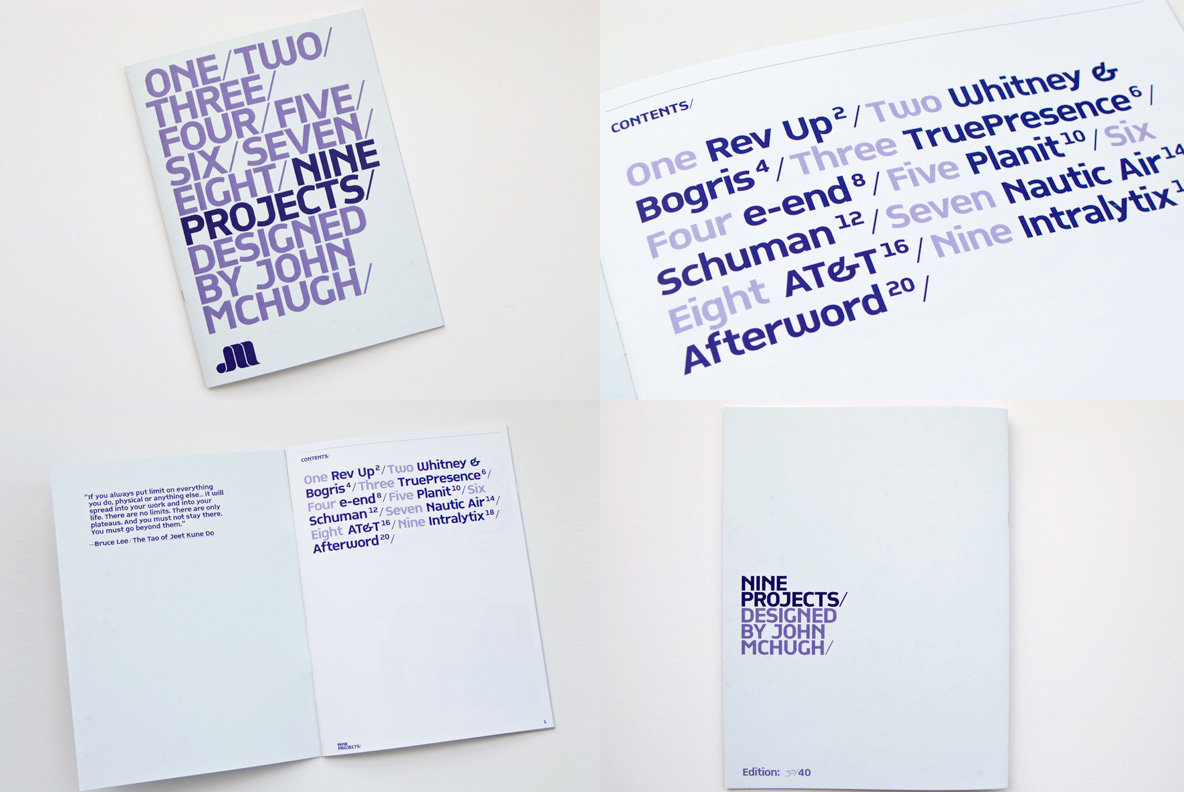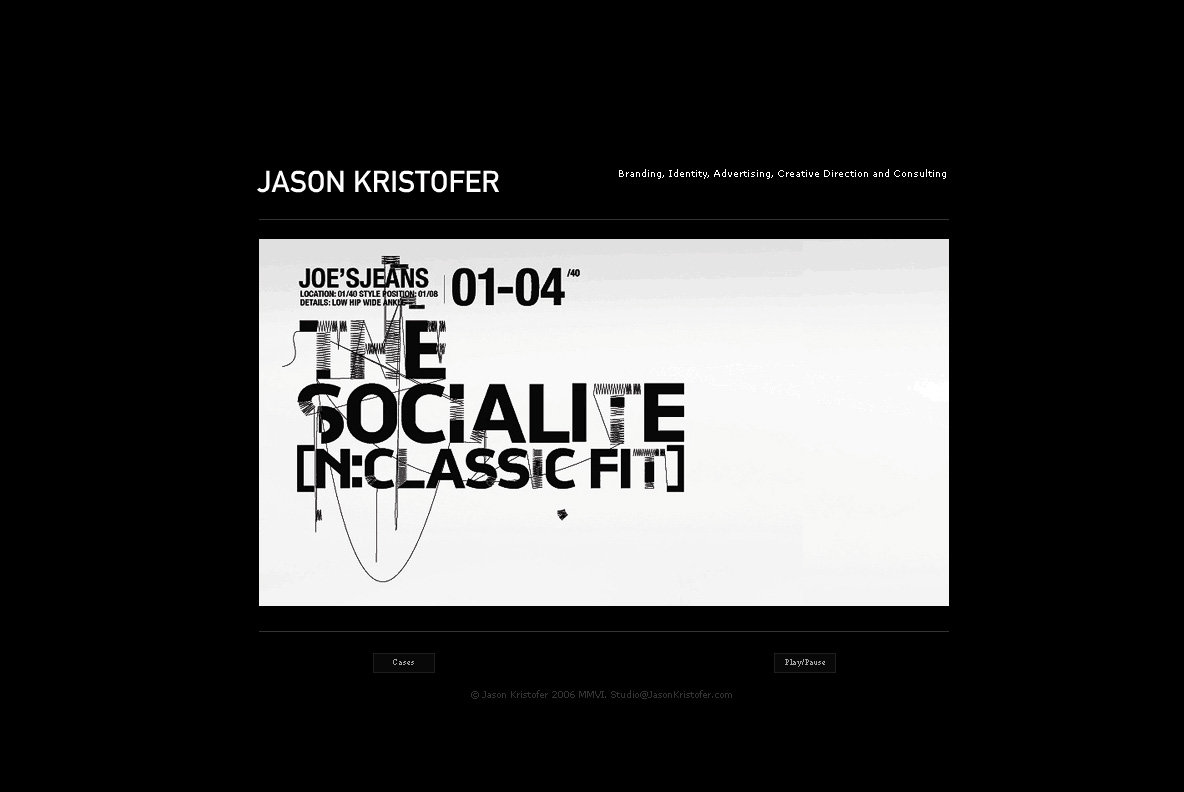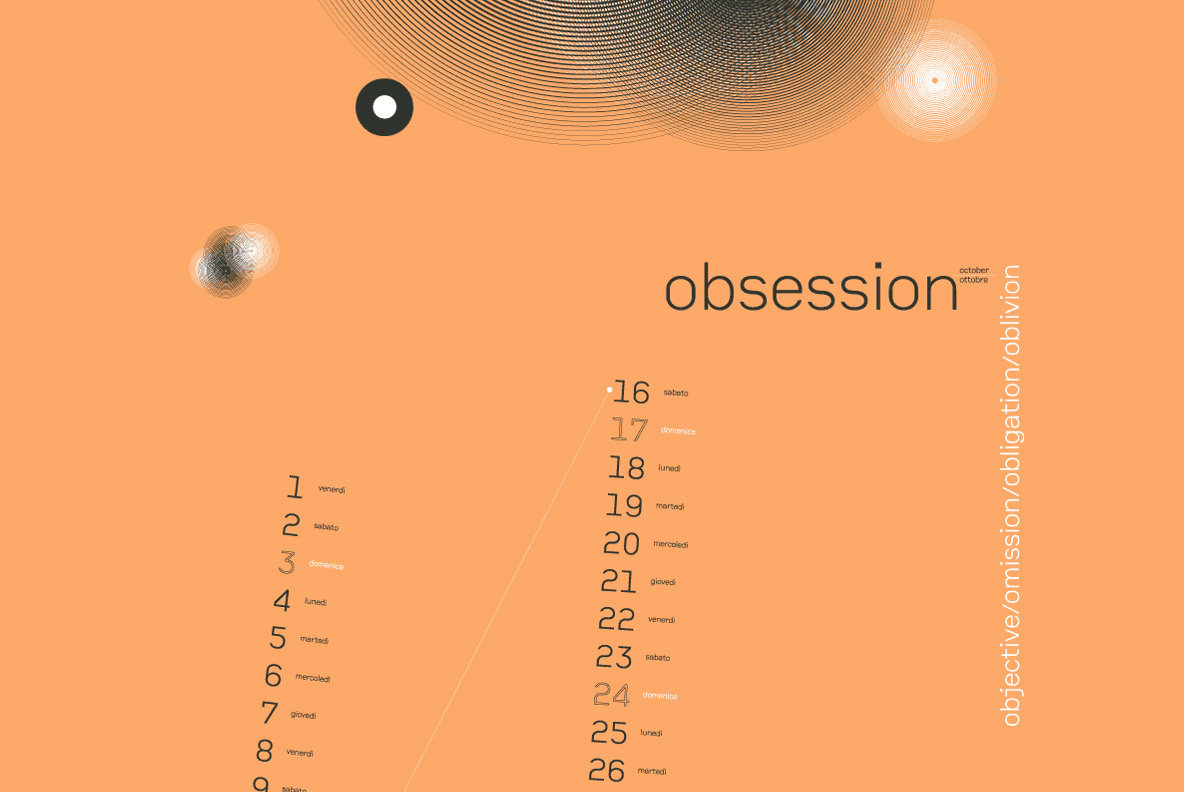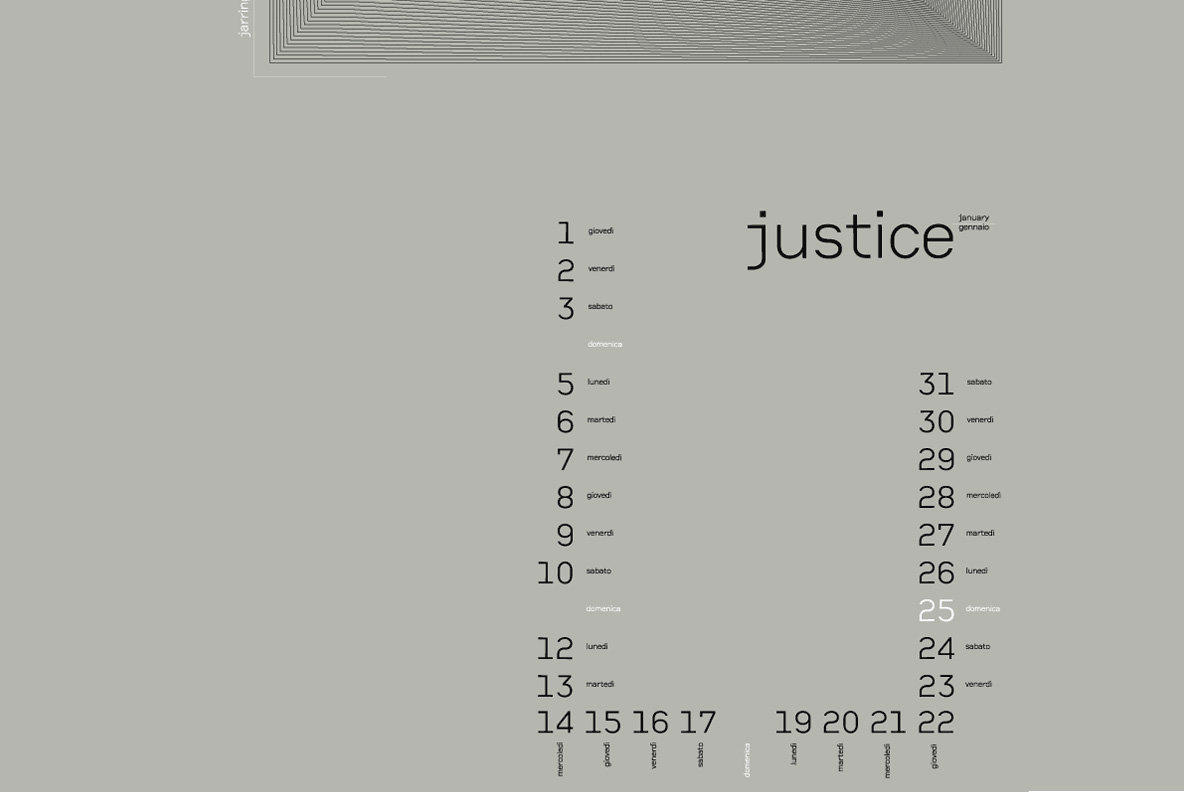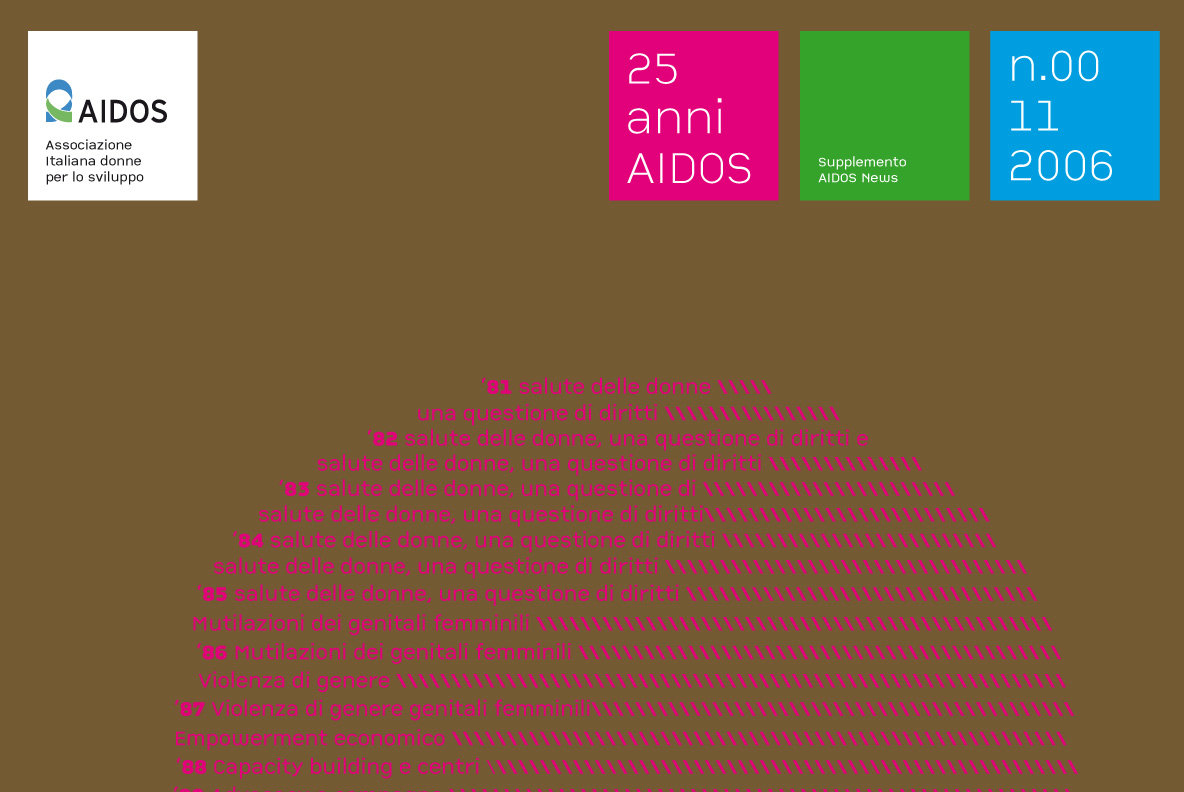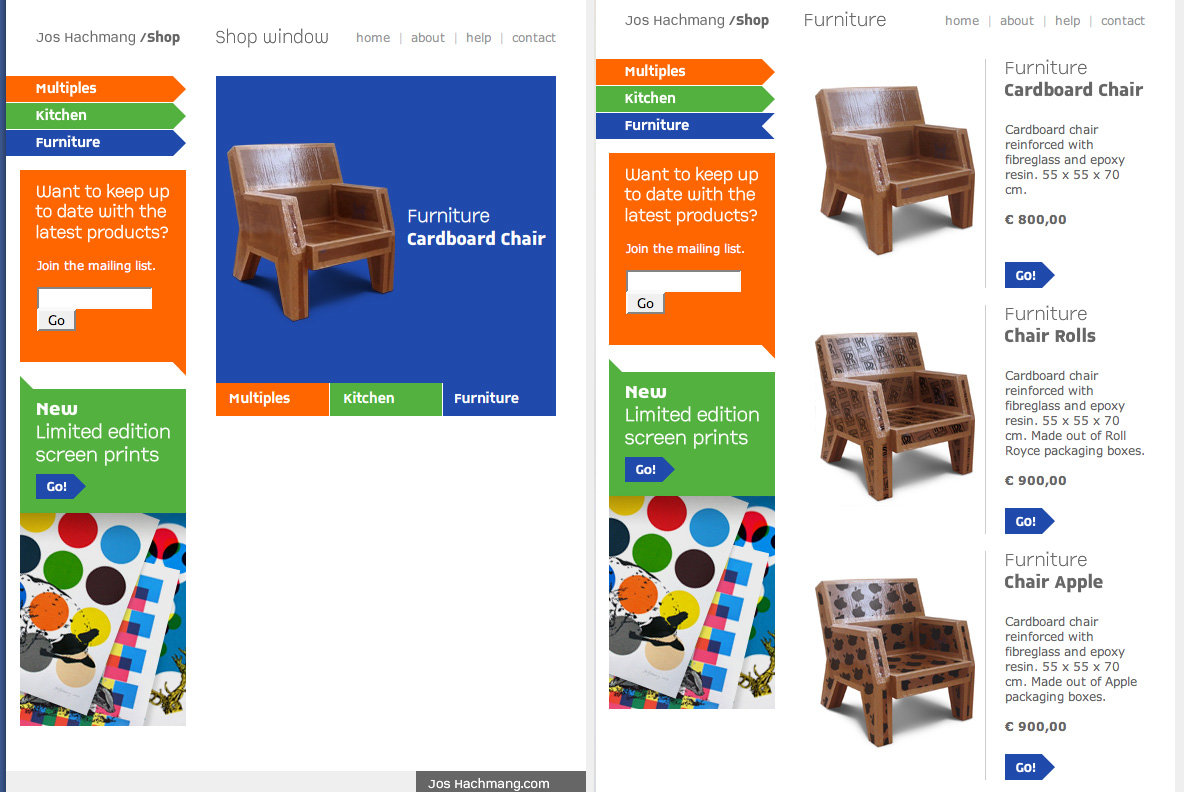
CP Company Font
CP Company Light
CP Company
CP Company Bold
CP Company Black
CP Company™ is a typeface designed in 2000 as part for the corporate image and internal communication of the Italian clothes manufacturer C.P. Company.
The company makes intensive use of press and web solutions for promotion and advertising, so they needed a typeface that is consistent for reading both on paper and on screen. So every weight of CP Company was TrueType hand hinted.